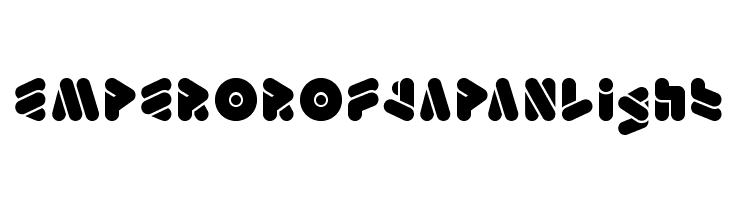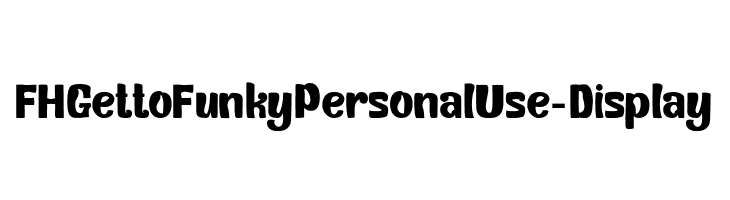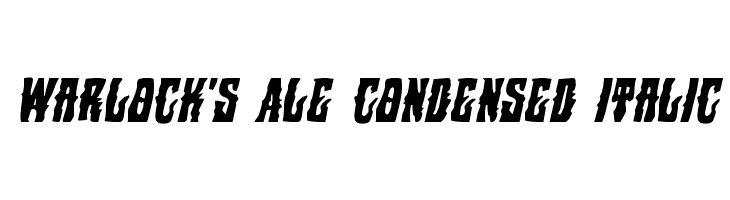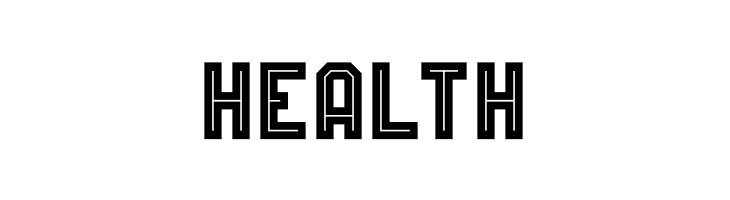
A bold, condensed, and italic font with jagged edges and a dynamic style.
A playful and flowing script font with elegant, cursive strokes.
A thin, decorative font with a connected dot pattern, offering a modern and artistic look.
A bold, three-dimensional font with striking shadow effects and geometric styling.
A playful, bold, and hand-drawn style font with a whimsical feel.
A bold, geometric font with a futuristic and decorative style.
A playful, hand-drawn font with a sketch-like, textured appearance.
A decorative and abstract font with fluid, calligraphic-inspired letterforms.
A bold, futuristic font with a two-tone horizontal line effect.